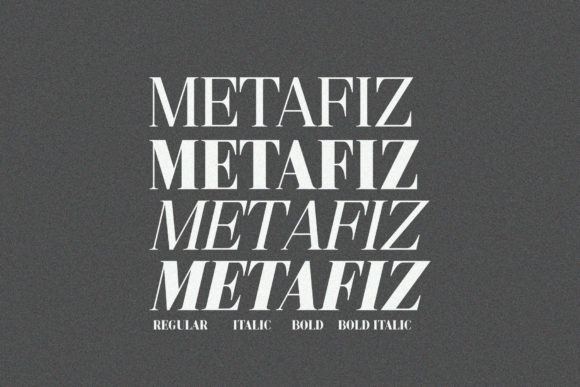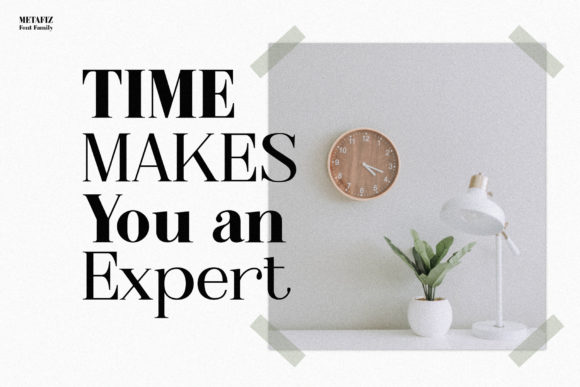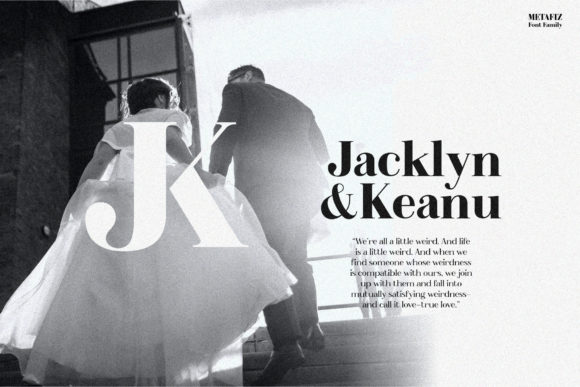
Introduction to Metafiz Font
Have you ever stared at a blank canvas, struggling to find the perfect font to bring your creative project to life? That’s exactly where I was when I stumbled upon the Metafiz Font – and it changed everything. Its elegant and bold serif style is like a breath of fresh air, instantly elevating any design to the next level.
As a designer, you know how valuable a high-quality font can be in making your projects stand out. That’s why I’m excited to share with you the wonders of the Metafiz Font, a design resource that’s not only stunning but also incredibly versatile. Whether you’re creating beautiful wedding invitations, gorgeous stationery art, or eye-catching social media posts, this font is sure to impress.
Key Features of Metafiz Font
- High-quality, professional design suitable for creative projects, with a free download option.
- Perfect for designers and artists looking for a unique design resource to elevate their creative projects.
Honest Review: Metafiz Font
I recently had the chance to work with the Metafiz Font for a creative project, and I must say it was a great experience. The font is a high-quality design resource that can add a unique touch to any project.
- ✨ The font has a beautiful, modern design that’s perfect for creative projects.
- ✨ It comes with a transparent background, making it easy to integrate into any design.
Overall, I’m impressed with the Metafiz Font. It’s a great design resource for personal projects or small-scale commercial use. With its high-quality design and transparent background, it’s a great addition to any designer’s toolkit.
Tips for Getting the Most Out of Metafiz Font
To maximize the use of the Metafiz Font, experiment with different font sizes, colors, and combinations to create a visually appealing design. Use the font in conjunction with other design elements, such as graphics and images, to add depth and interest to your project.
Common Use Cases for Metafiz Font
The Metafiz Font is suitable for a variety of creative projects, including graphic design, branding, and digital art. Its unique design makes it an excellent choice for projects that require a high level of creativity and visual appeal.